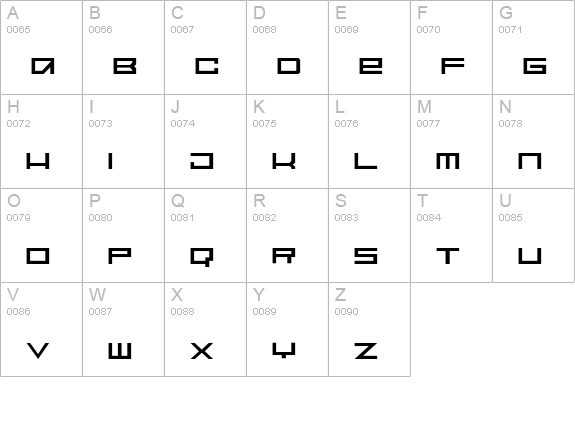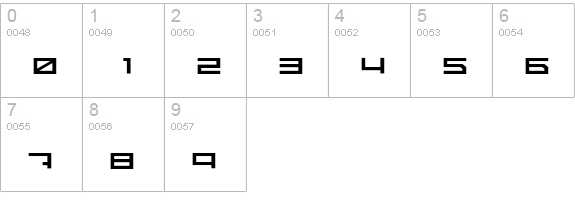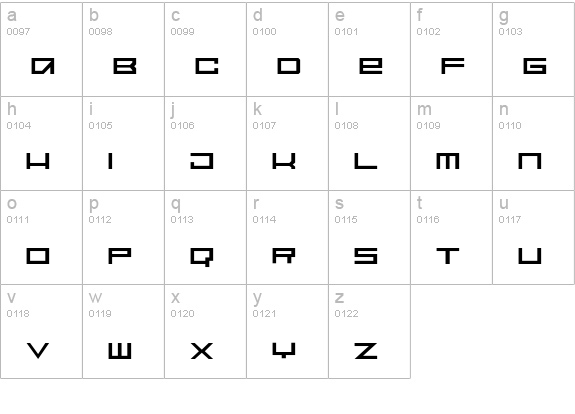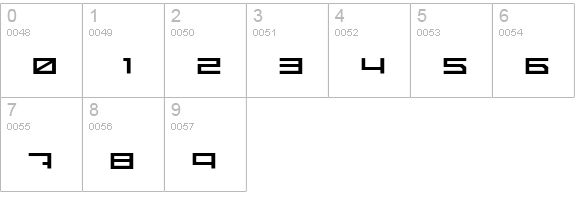
AmmoMonkey Font Details
Introducing AmmoMonkey font, a versatile and stylish typeface that is perfect for a wide range of design projects. This unique font features a modern and playful style, making it ideal for creating eye-catching headlines, posters, logos, and more. With its bold and dynamic letterforms, AmmoMonkey font is sure to make your designs stand out from the crowd. The best part? AmmoMonkey font is completely free to download at FontsMarket.com. Whether you're a professional designer or a hobbyist looking to add some flair to your projects, this font is a must-have in your collection. Don't miss out on the opportunity to enhance your designs with the bold and captivating AmmoMonkey font today!